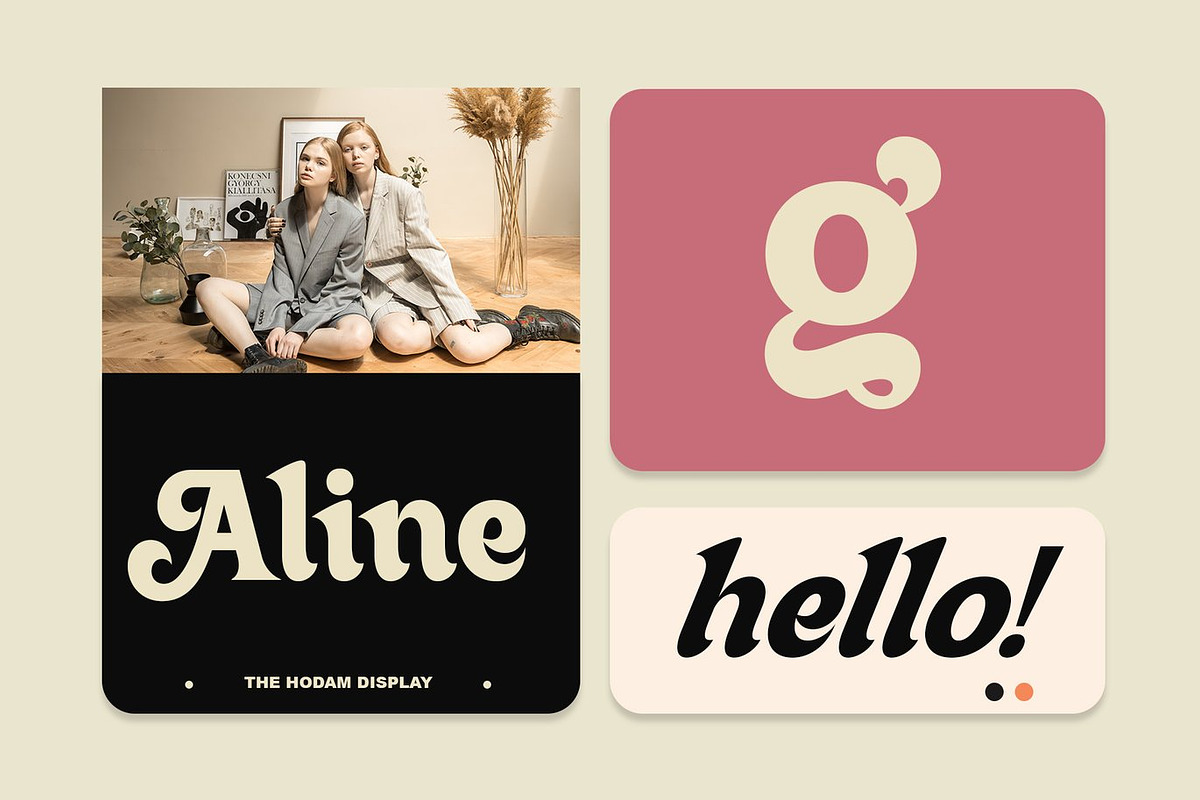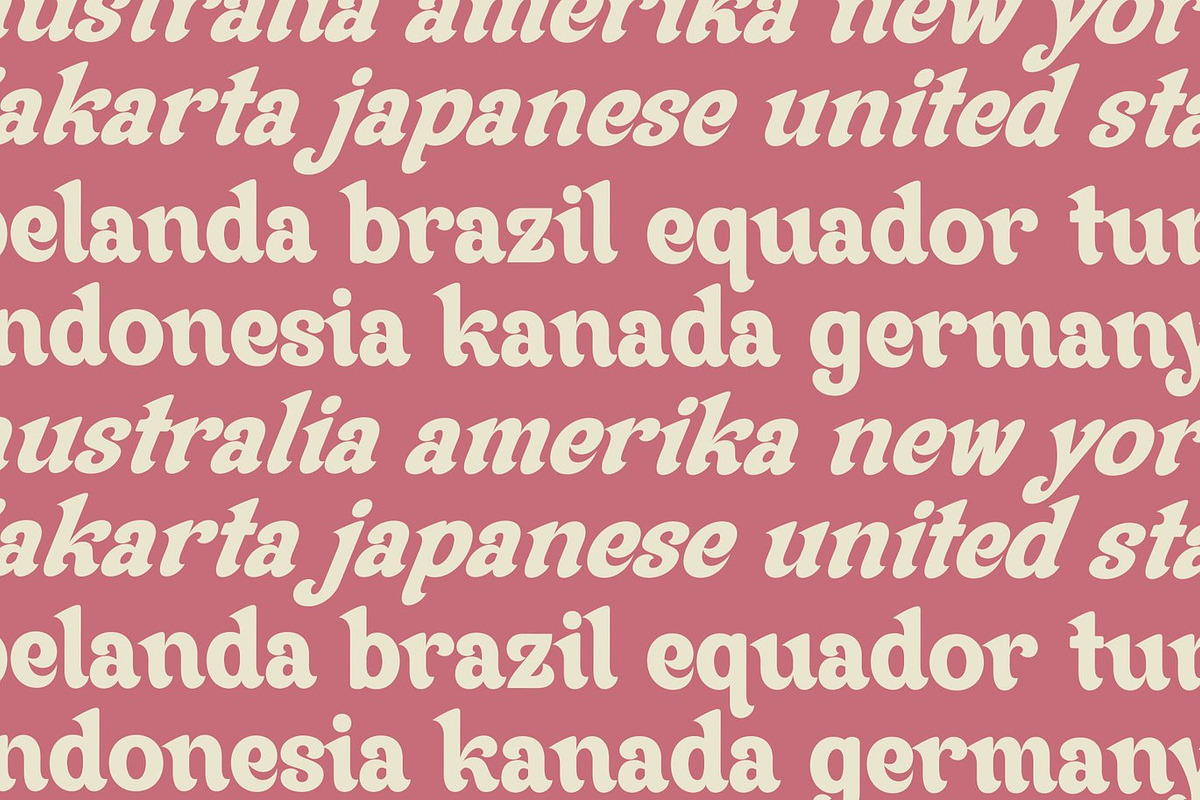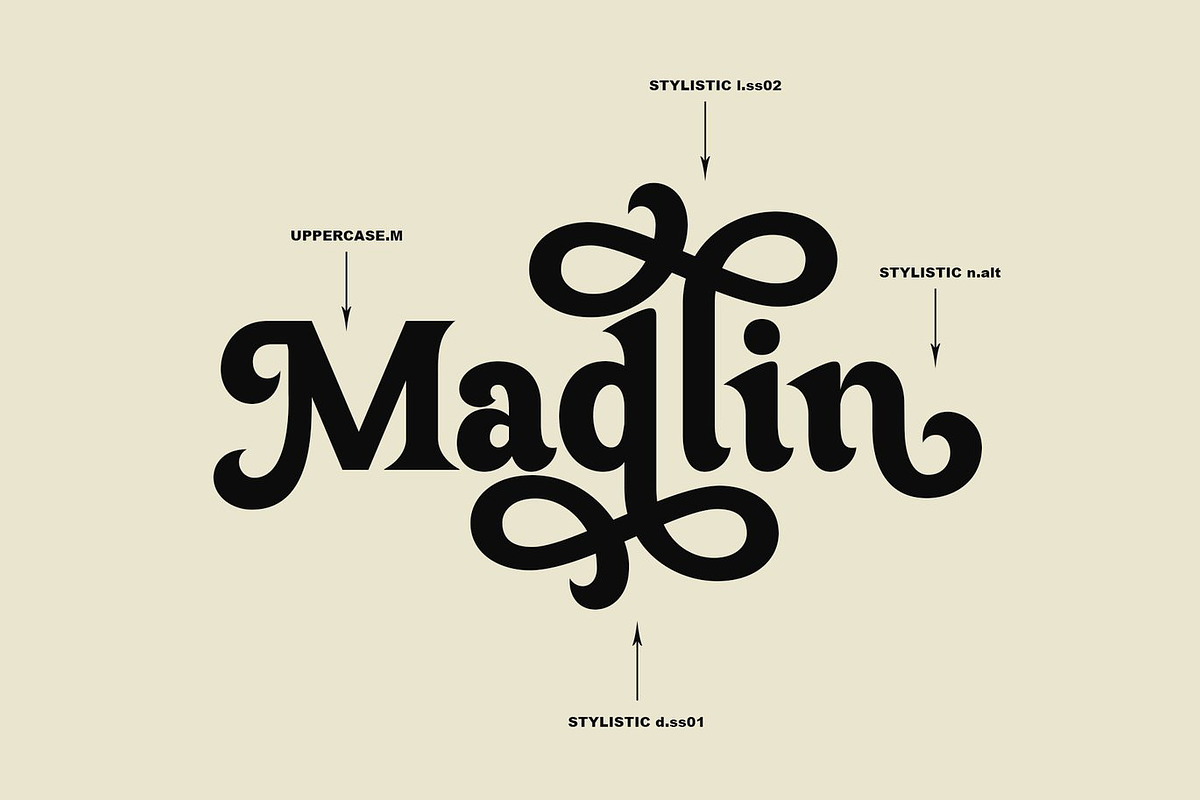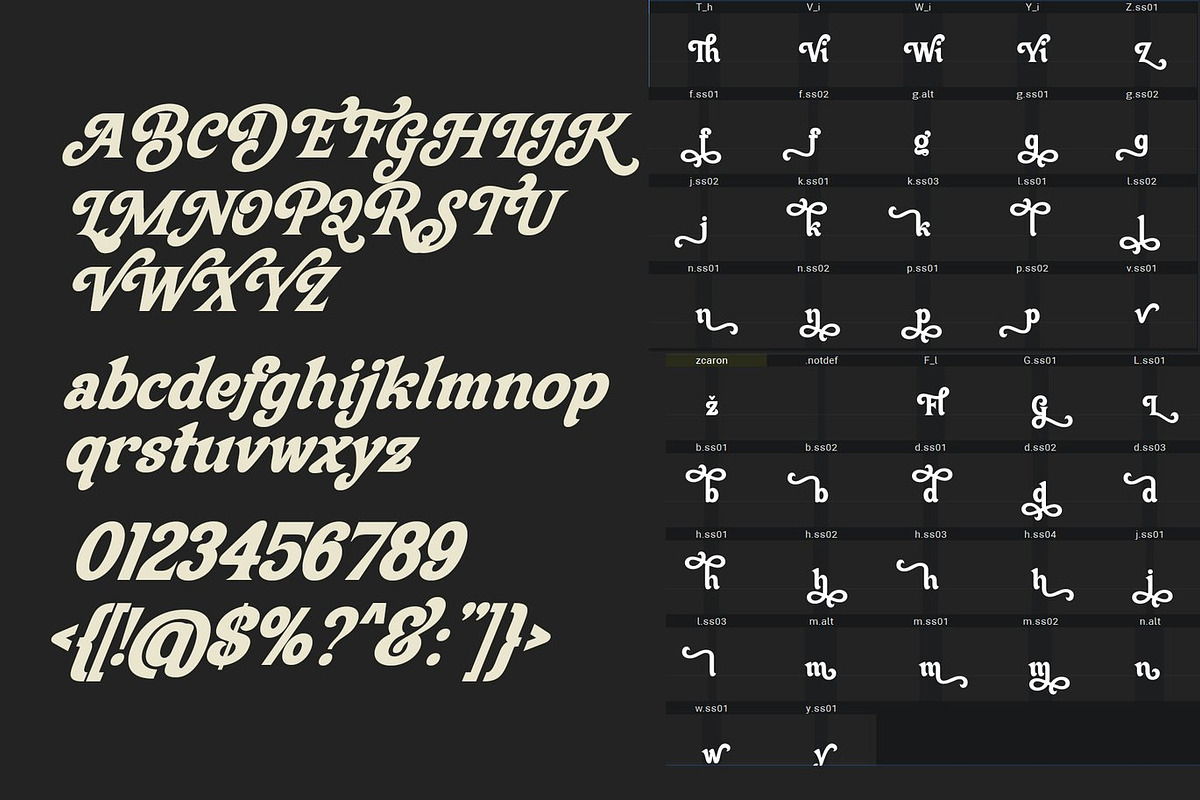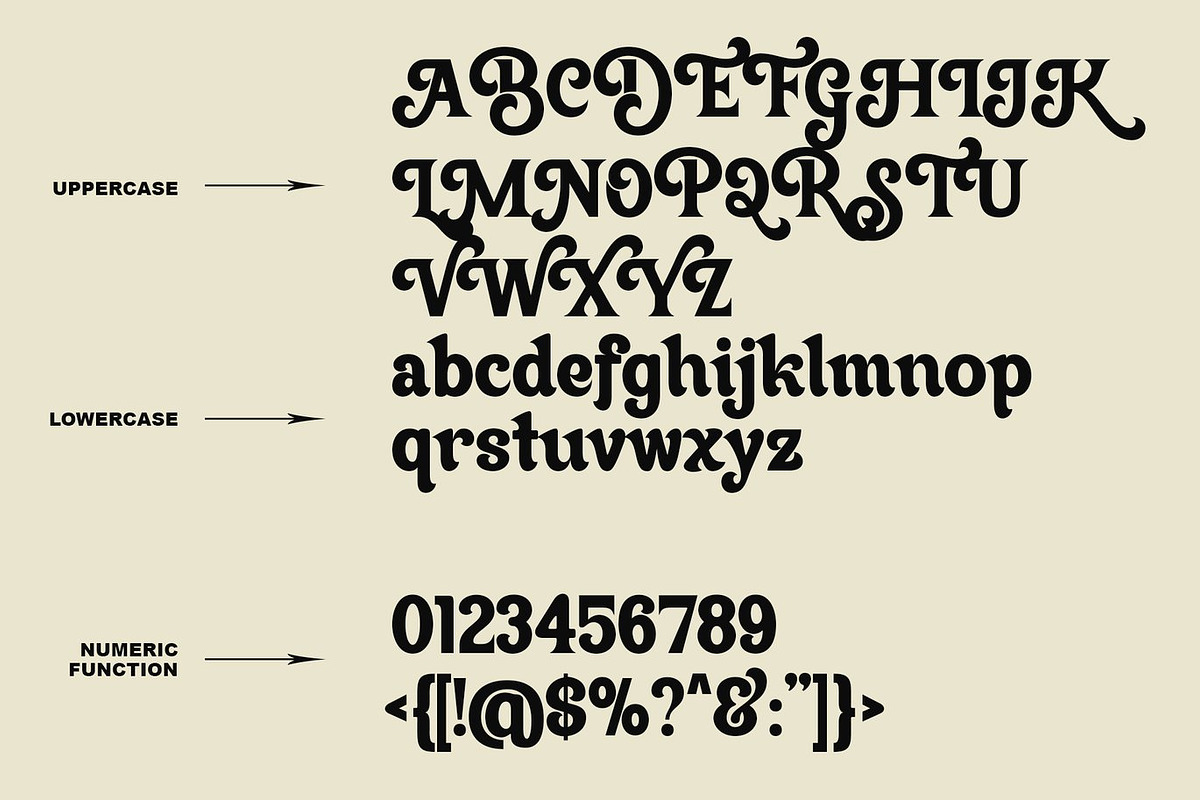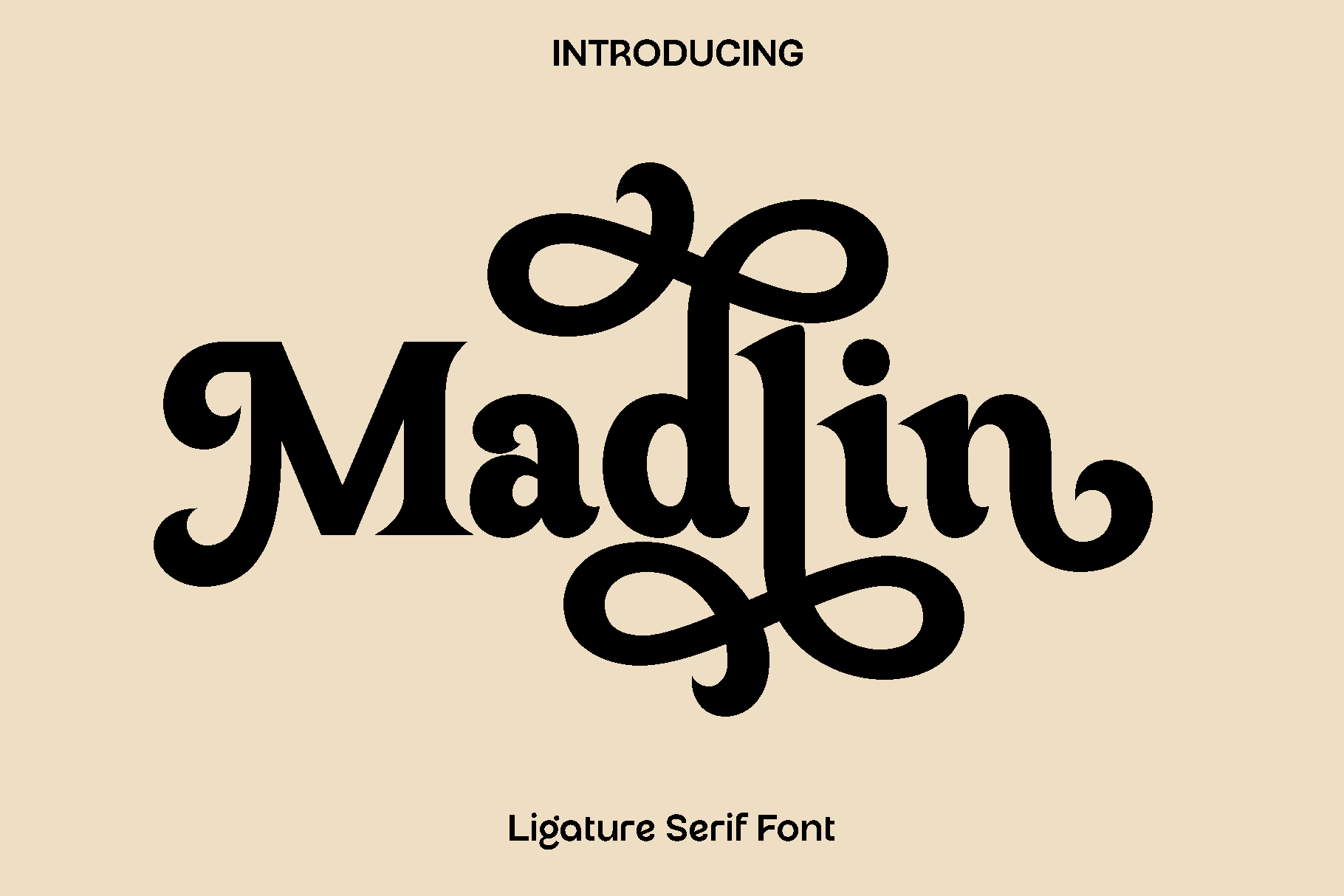
Madlin - Ligature Serif Font
Madlin is a modern and stylish font designed to bring sophistication and charm to a wide range of creative projects. Its clean lines, balanced proportions, and subtle personality make it an ideal choice for designers seeking elegance with versatility. Madlin combines functionality with aesthetic appeal, ensuring your text looks polished and professional while maintaining readability and visual impact.
Perfect for books, magazines, logos, branding, photography, quotes, blog headers, posters, and advertisements, Madlin adapts seamlessly across both print and digital media. Its graceful letterforms and carefully crafted curves give your designs a refined and contemporary feel, making every word stand out. Whether used in bold headlines or subtle typographic details, Madlin adds a stylish and cohesive look to your projects.
Madlin also includes a slanted version, offering dynamic options for creative expression. Its OpenType and TrueType formats provide extensive typographic support, including uppercase and lowercase letters, numerals, ligatures, stylistic alternates, and multilingual characters. This font empowers designers to create elegant compositions that are both functional and visually captivating.
Madlin Font Features:
• Uppercase and lowercase characters
• Numerals and symbols included
• Stylistic alternates and ligatures
• Functional and versatile for any project
• Multilingual support for global design needs
Madlin is the perfect tool for designers who want a sophisticated, versatile, and elegant font to elevate any creative project.